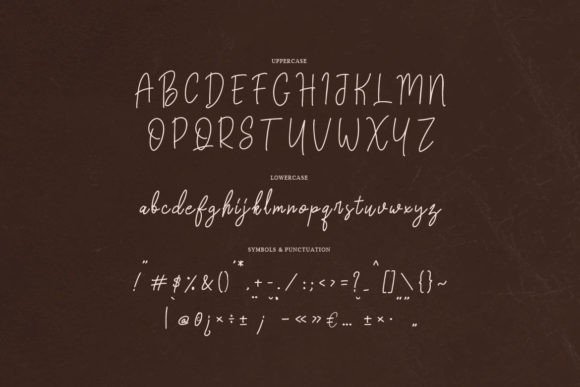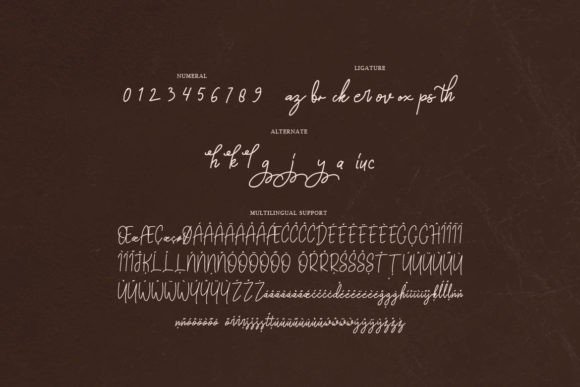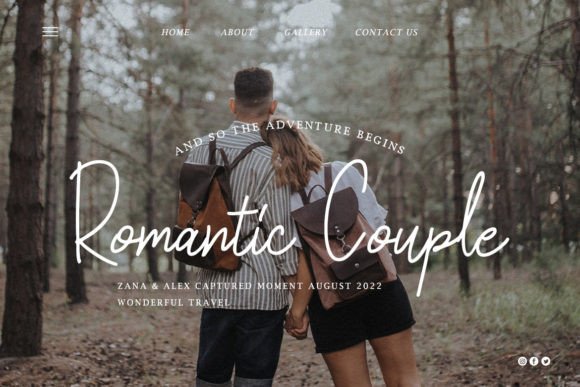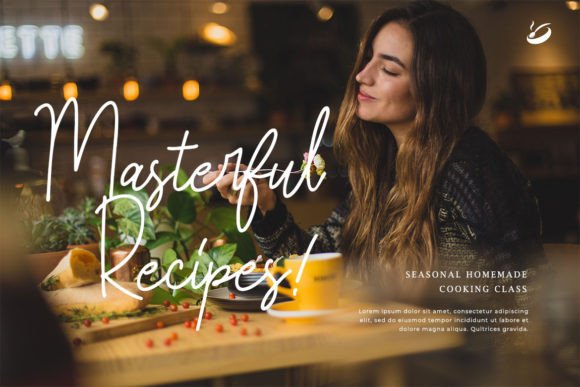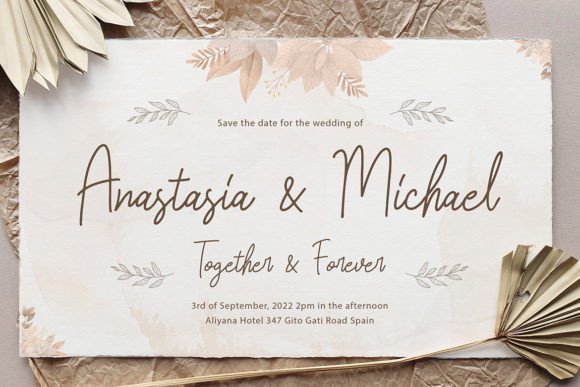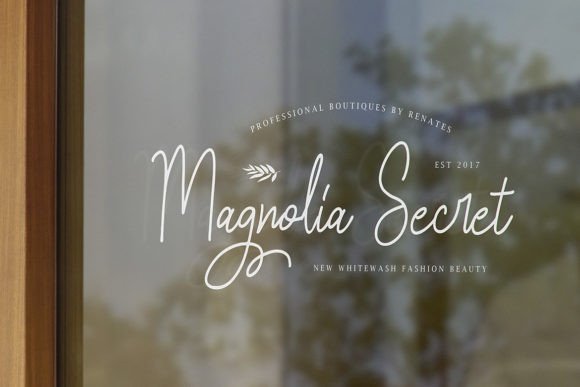
Introduction to Saybrox Font
Have you ever been stuck on a creative project, desperately searching for the perfect font to bring your vision to life? The frustration is real, but we’re here to help. Today, we’re excited to introduce you to the Saybrox Font, a game-changing design resource that will elevate your projects and leave a lasting impression.
With its authentic handwriting style, Saybrox Font is perfect for logos, product packaging, and wedding invitations. Its high-quality design makes it a valuable asset for any creative project, and the best part? It’s available for a free download, giving you the freedom to experiment and push your boundaries.
Key Features of Saybrox Font
- High-quality design resource suitable for various creative projects
- Unique, modern font with a transparent background, allowing for versatility in design
- Perfect for graphic designers, digital artists, and anyone looking for a high-quality font for their next project
- Includes a full character set, making it suitable for both personal and commercial use
Honest Review: Saybrox Font
As a designer, I’m always on the lookout for high-quality design resources that can elevate my creative projects. Recently, I stumbled upon the Saybrox Font, and I must say it’s been a game-changer for my latest design endeavors. ✨
The Saybrox Font offers a clean and modern aesthetic, making it perfect for a wide range of design applications, from logos to digital products. Its transparent background and versatility make it a great addition to any design library. Plus, it’s available for free download, which is a huge bonus for designers on a budget.
Here are some of the key features that work well for me:
- High-quality design with a modern aesthetic
One potential limitation I’ve noticed is that the font may not be suitable for complex typography or text-heavy designs. ⚠️ The font’s clean design can make it difficult to read in certain situations, so it’s essential to use it thoughtfully.
Overall, I’m thoroughly impressed with the Saybrox Font, and I’m confident it will become a staple in my design library. Its high-quality design, versatility, and free download make it an excellent resource for designers working on creative projects.
Tips for Getting the Most Out of Saybrox Font
Experiment with different font sizes and styles to create visual interest in your design. Use Saybrox Font in combination with other design elements to create a cohesive look. Don’t be afraid to push the boundaries of your creative project with Saybrox Font.
Saybrox Font is perfect for designing logos, posters, and other visual materials. Its high-quality design and transparent background make it an ideal choice for creative projects that require intricate details. Saybrox Font is a valuable addition to any designer’s toolkit.